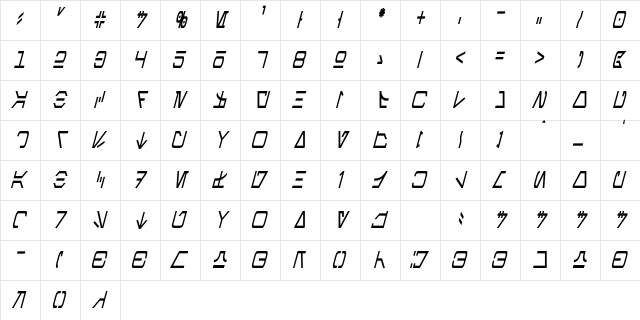
Aurebesh Condensed Italic
Design Context for Aurebesh Condensed Typeface
Aurebesh Condensed takes a measured approach to typography — its balanced proportions and neutral character make it a reliable workhorse for both digital and print work. Its italic angle brings a sense of urgency and motion to the letterforms. The condensed width makes it efficient for tight spaces without sacrificing legibility.
Pro Tip: Try Aurebesh Condensed for annotation and caption copy alongside an upright companion — the contrast in angle creates a dynamic but ordered typographic system.